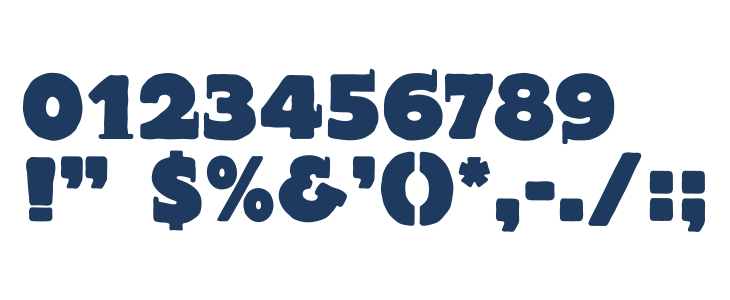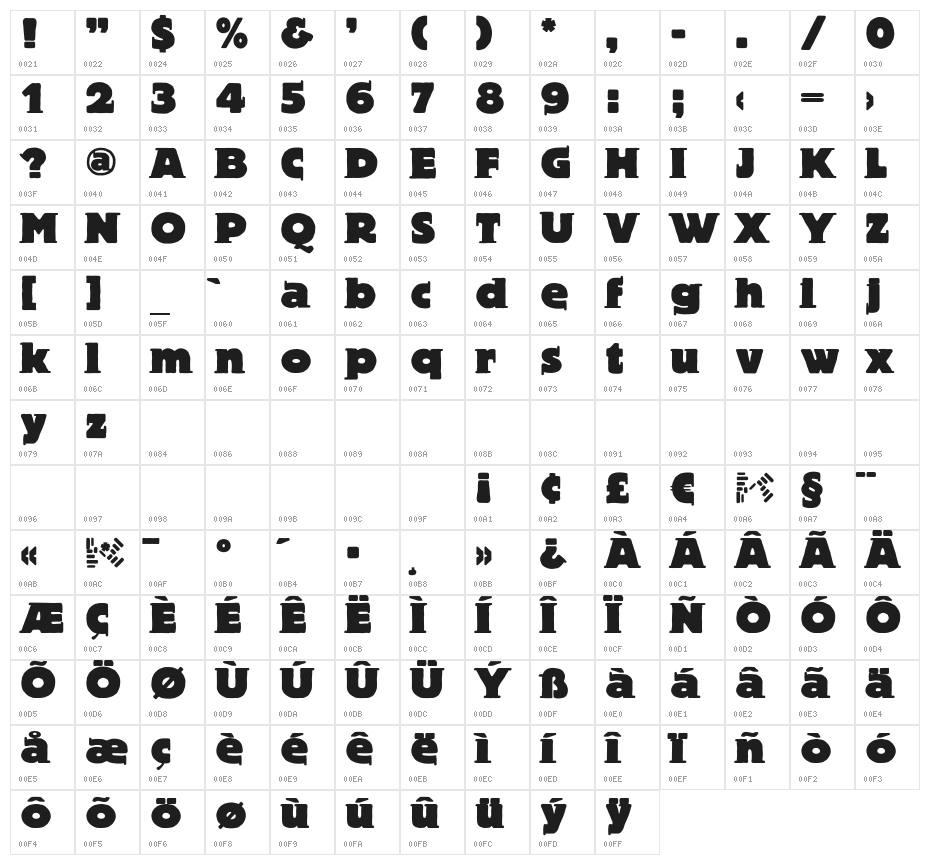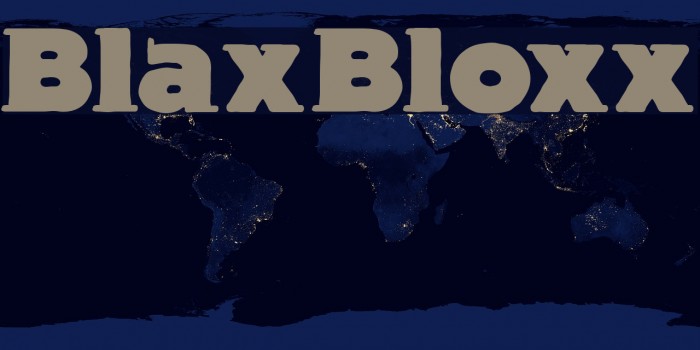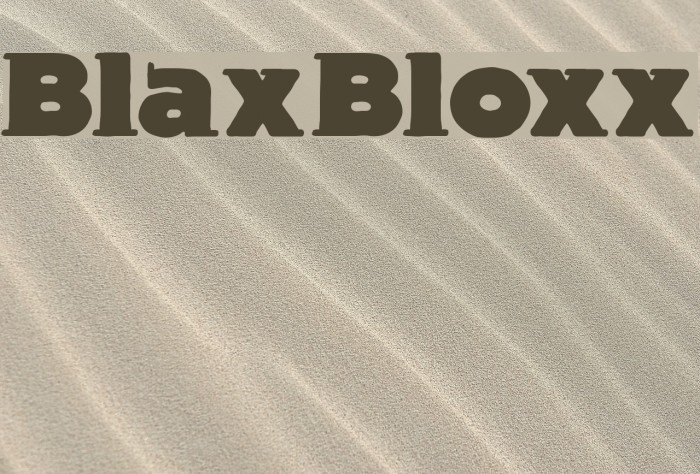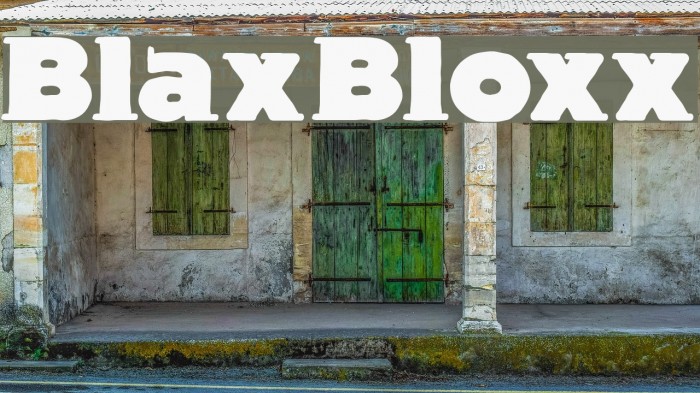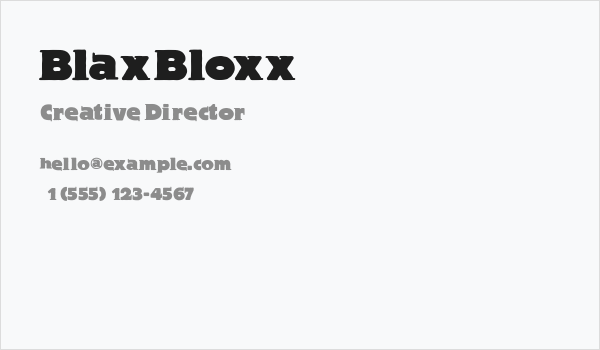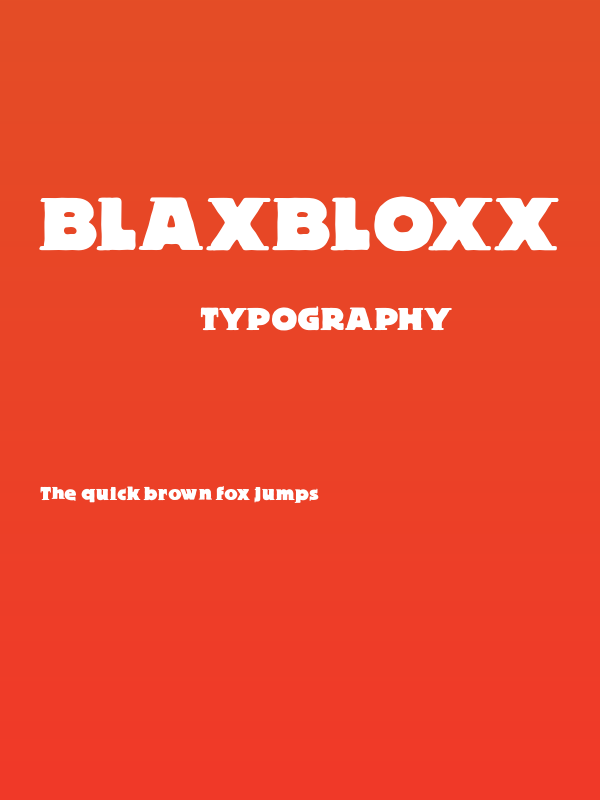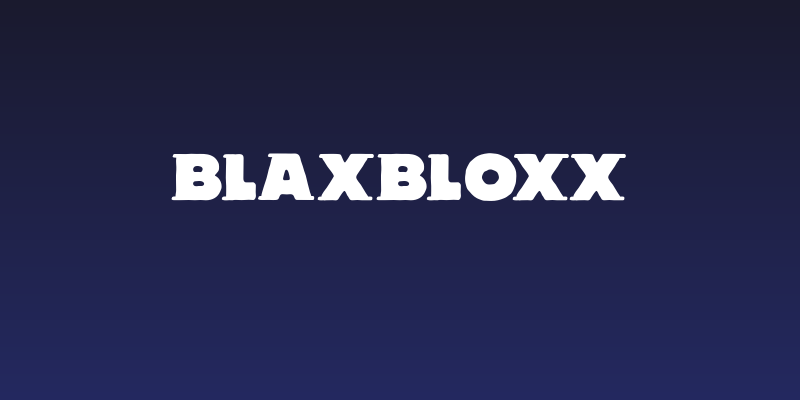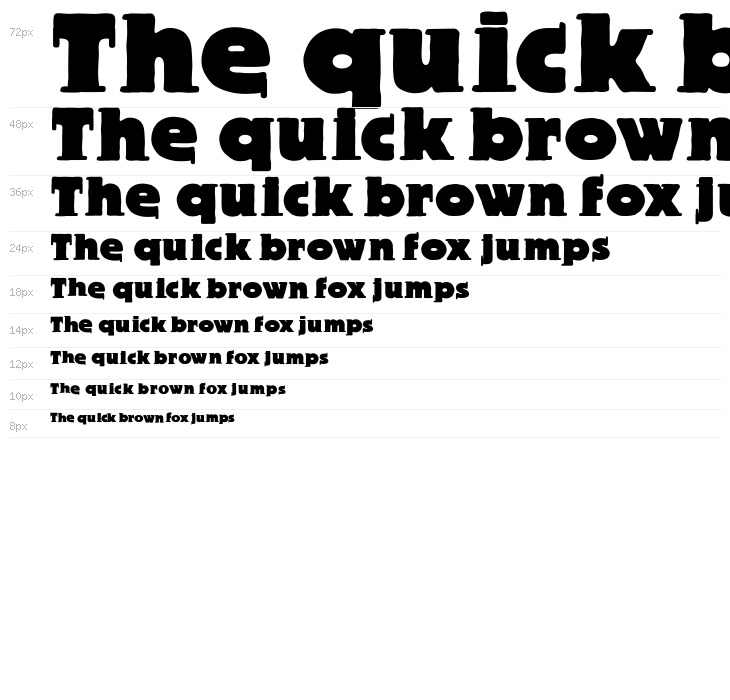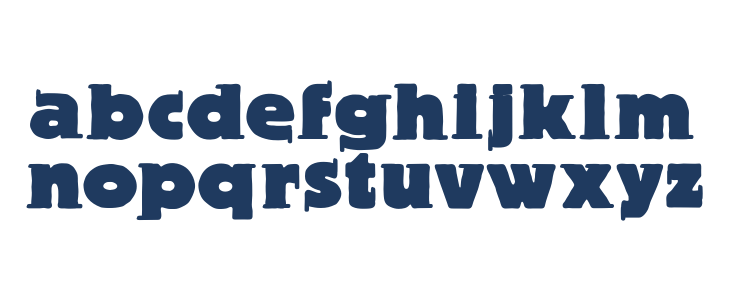
BlaxBloxx Font
BlaxBloxx Description
This font features bold, chunky letters with a strong presence, making it ideal for attention-grabbing designs. The characters have a playful yet robust appearance, with slightly rounded edges that soften the overall look. The uppercase and lowercase letters maintain a consistent weight, providing a cohesive visual impact. The numbers and special characters are equally bold, ensuring readability and uniformity across different uses. This font's style is reminiscent of retro or vintage designs, offering a nostalgic feel while remaining modern and versatile.
| Proposed Projects | Ideal for posters, logos, headlines, and branding materials that require a strong visual impact. |